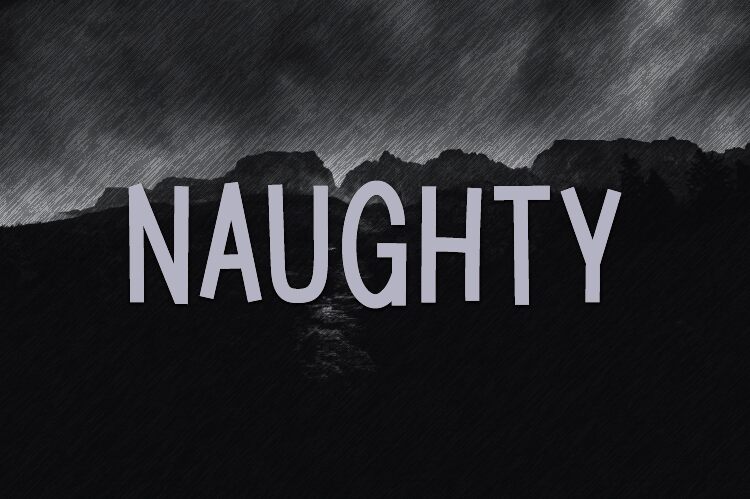
Naughty font family by Hanna Bie is a free font family inspired by cartoons. The designer’s influence is reflected in the geometric shapes and the revived retro style for a contemporary application. Each character features a minimalist and modernist-inspired influence for an aesthetic best suited for new fashion businesses or even newer digital media designs. The font family features 2 font styles.
Although of a typical cartoon style, striking a balance between heaving black accents and designed thin accent features, the capitals are essential and non-interchangeable with the small caps. The font family can be downloaded and implemented in various brand identity project elements all in the same style. Beneficial uses would be in a logo, stationery, packaging, and product labeling, after thorough testing and experimentations.